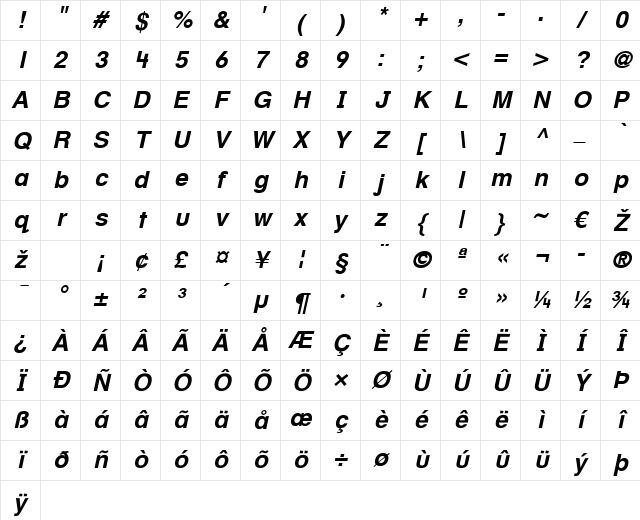
HelveticaTextbook LT Roman Bold Italic
Design Context for HelveticaTextbook LT Roman
HelveticaTextbook LT Roman is a composed and adaptable typeface that performs quietly and consistently across a wide range of design contexts. The slanted form adds forward momentum and visual energy. Its bold stroke weight gives it real presence on the page.
Pro Tip: Use HelveticaTextbook LT Roman for emphasis, pull quotes, and subheadings where its slanted energy can add rhythm to the layout.